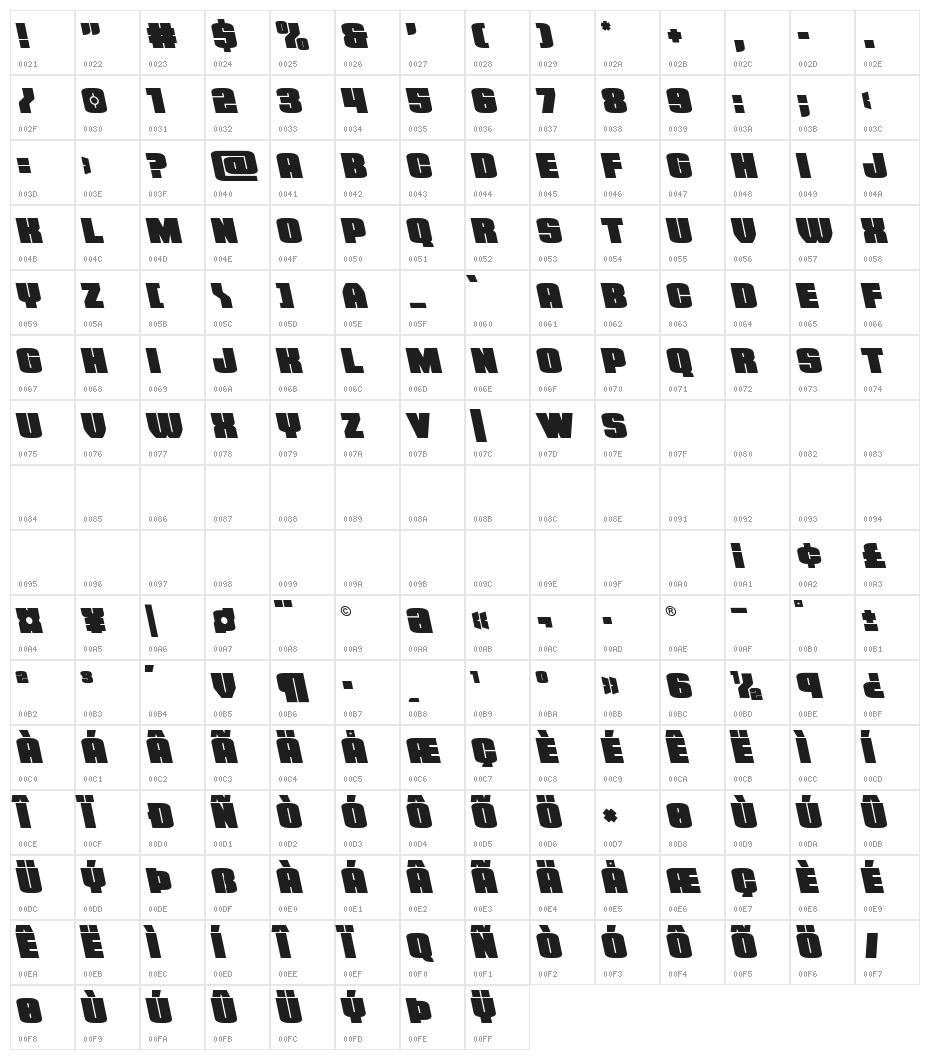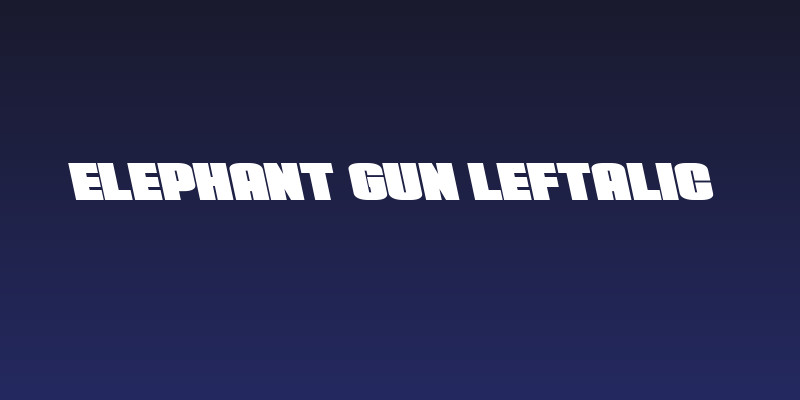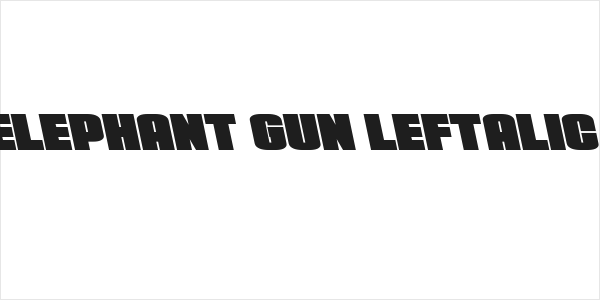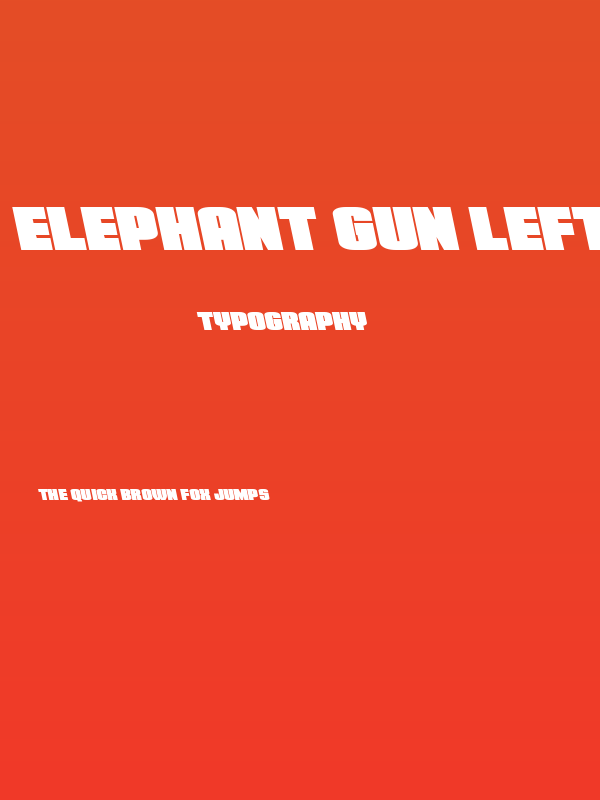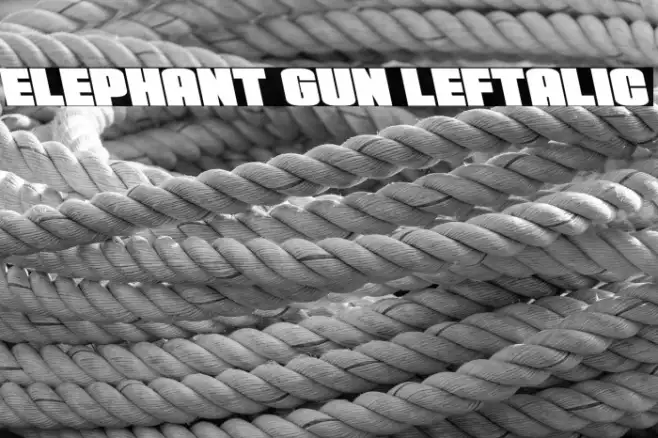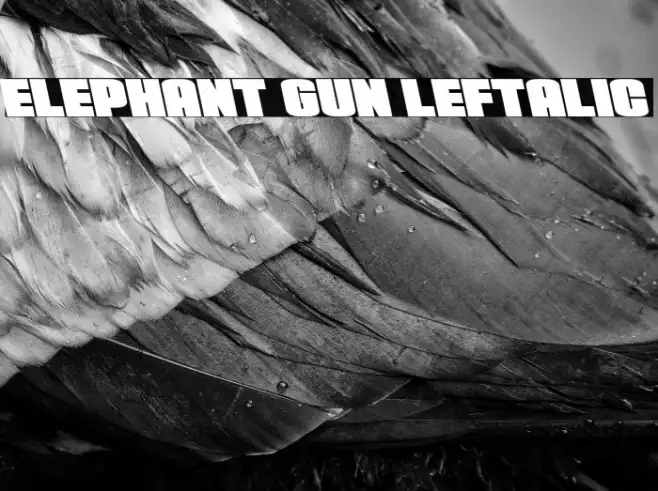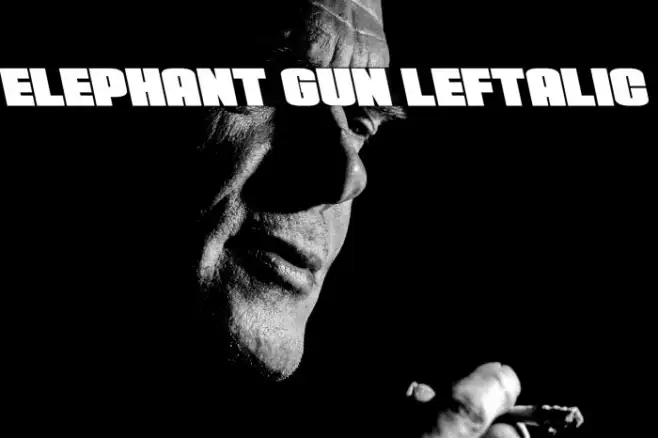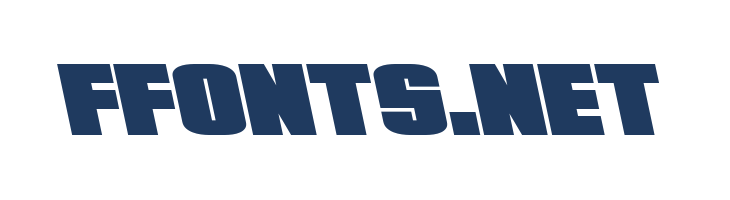
Elephant Gun Leftalic Font
This font features a bold and impactful design with a strong presence. The characters are heavily weighted, creating a sense of power and authority. The letters are slightly slanted, adding a dynamic and forward-moving feel. The strokes are thick and consistent, with minimal contrast, giving the font a solid and robust appearance. The overall style is modern and assertive, making it suitable for attention-grabbing headlines and statements. The character spacing is tight, which enhances the compact and cohesive look of the text.
| Proposed Projects | Ideal for use in posters, headlines, branding, and any project requiring a bold statement. |